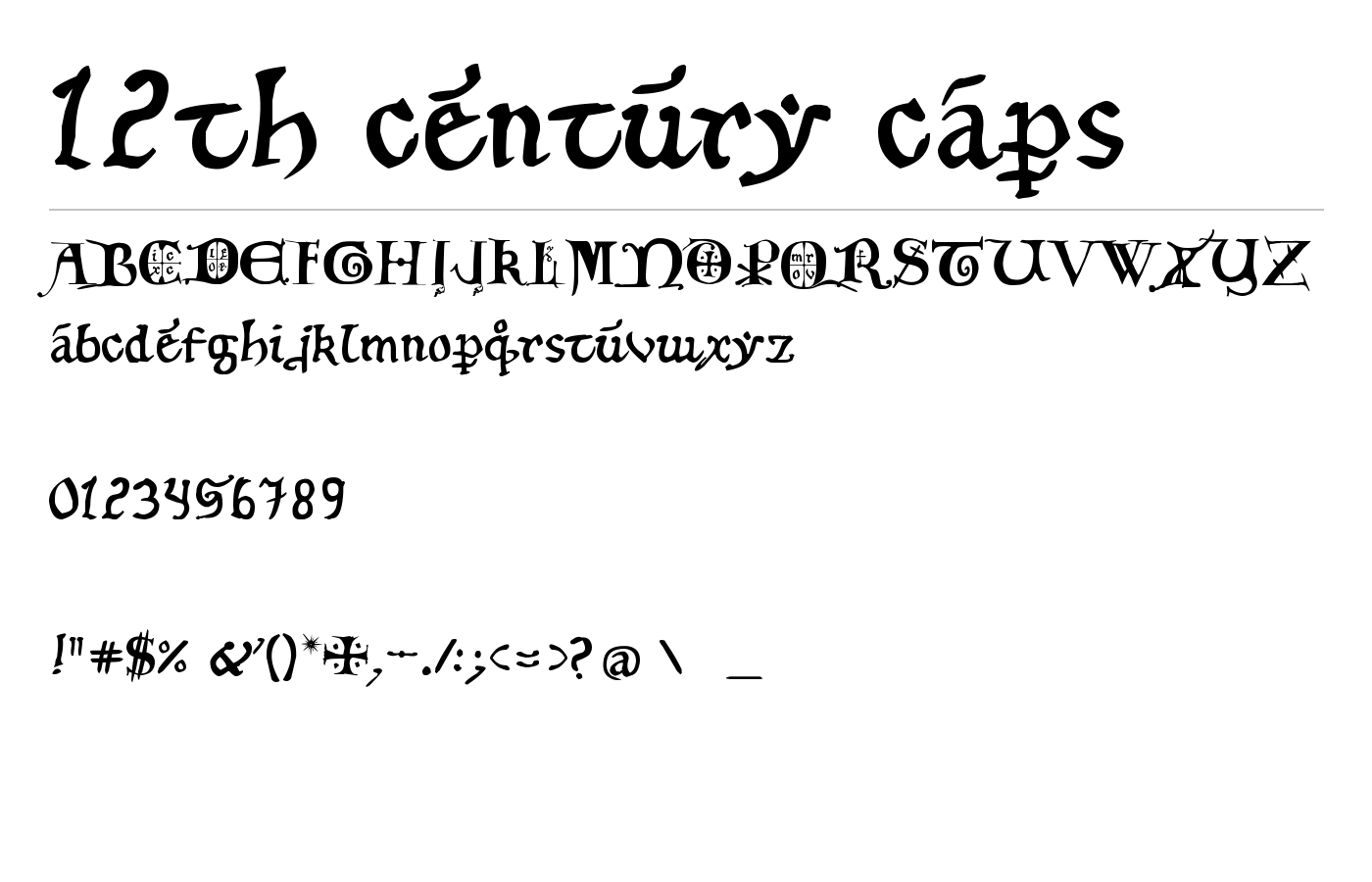
12th C. Fancy Caps is a decorative serif font that channels a medieval, Gothic aesthetic with its intricate, uneven strokes and ornate letterforms. Its bold, stylized characters with unique details and moderate contrast evoke a historical, vintage feel, making it ideal for designs that require an old-world charm, such as book covers, fantasy-themed projects, and event invitations. This font works best in display uses where its elaborate style can stand out without sacrificing readability.
About 12th C. Fancy Caps Font